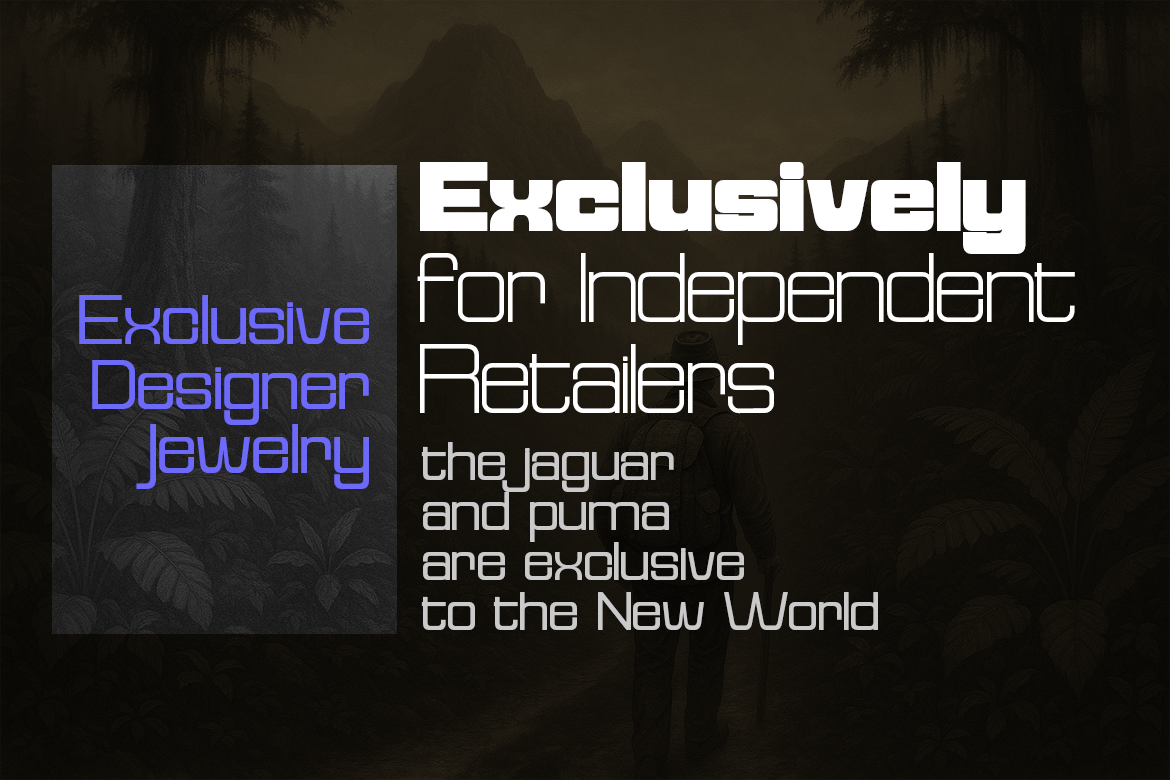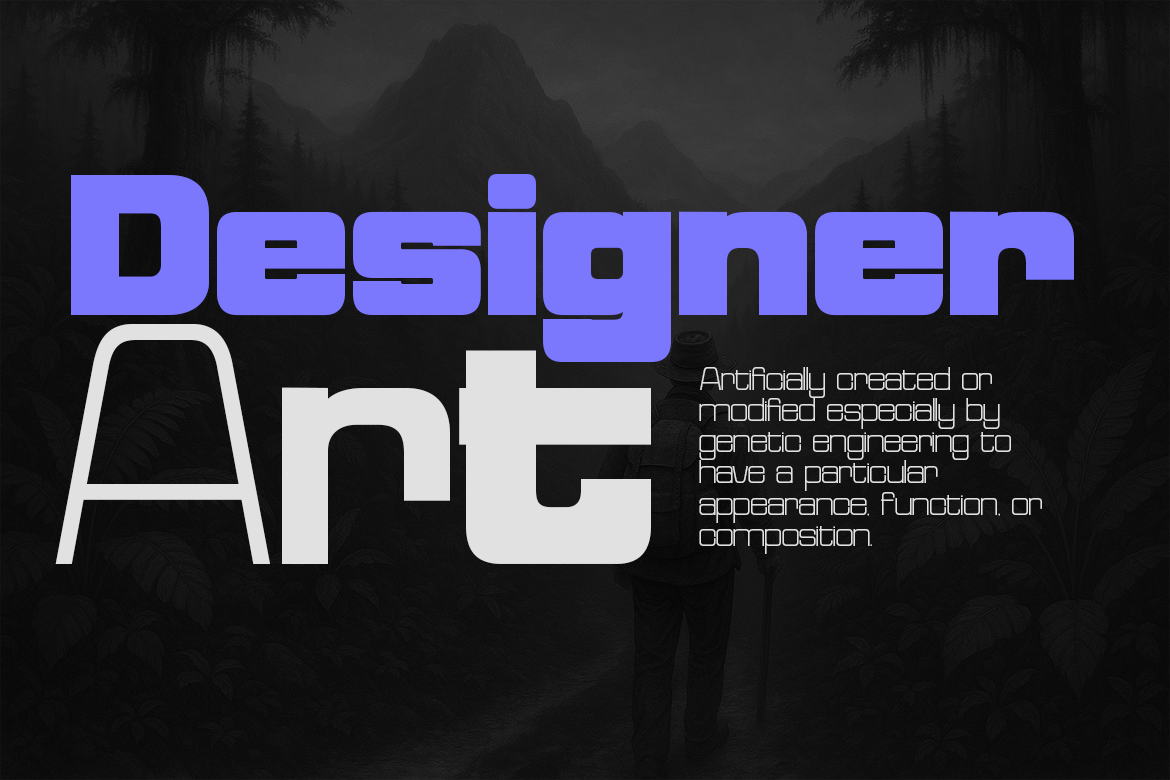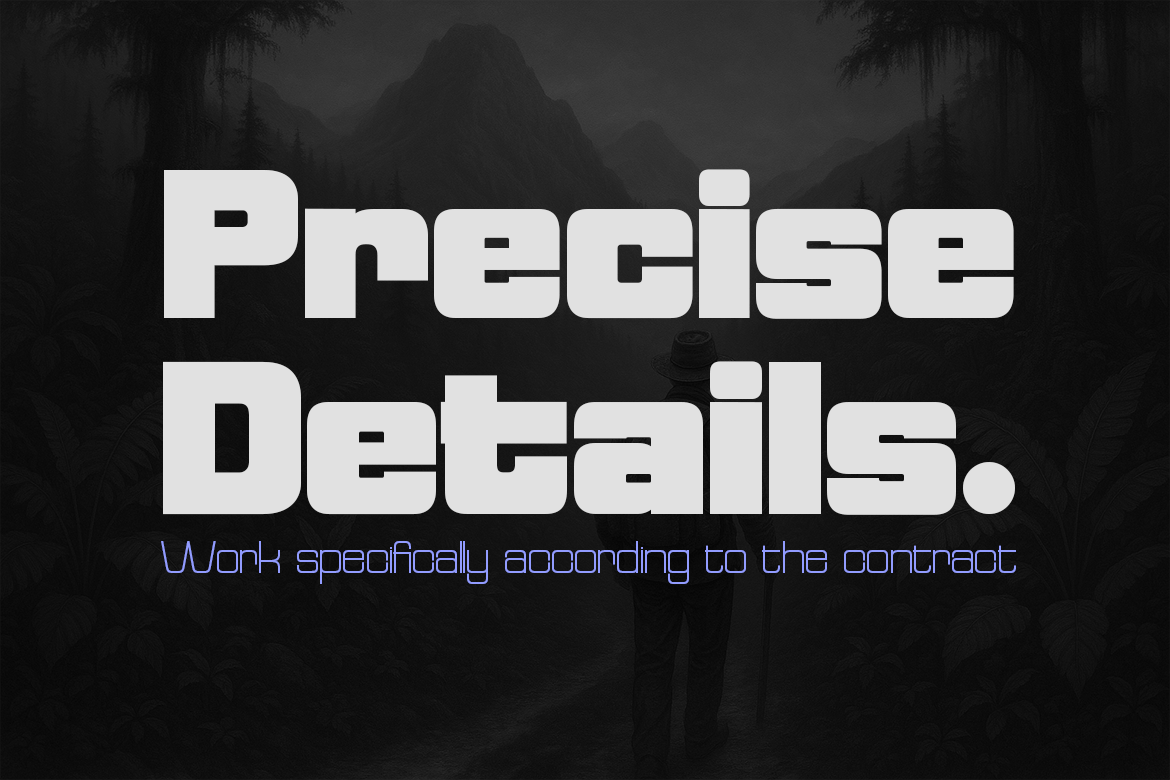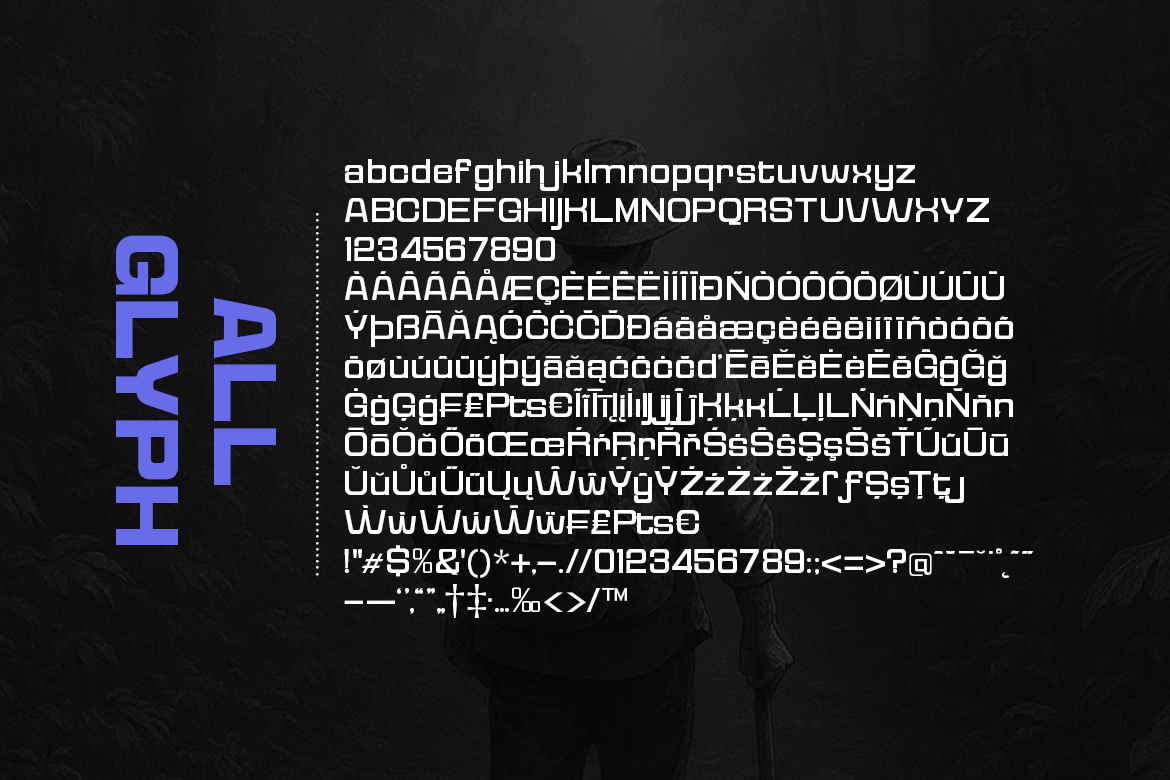
Reflect of Strictly Semi Expanded
Reflect of Strictly Semi Expanded — 12 Upright Weights (Thin–Extra Black)
Reflect of Strictly Semi Expanded provides a refined middle ground between the Normal and Expanded sets. With slightly wider proportions, this category offers a premium, elegant character while preserving the geometric precision found across the entire Reflect of Strictly family.
It feels open and spacious without becoming overly large, giving designers a luxurious yet controlled typographic option.
Great for: — Premium branding and luxury editorial — Signage and display systems — Lifestyle and fashion layouts — Product packaging — Website headers and modern identities
Equipped with 12 upright weights, from Thin to Extra Black, this width delivers consistent versatility for building sophisticated and professional design compositions.